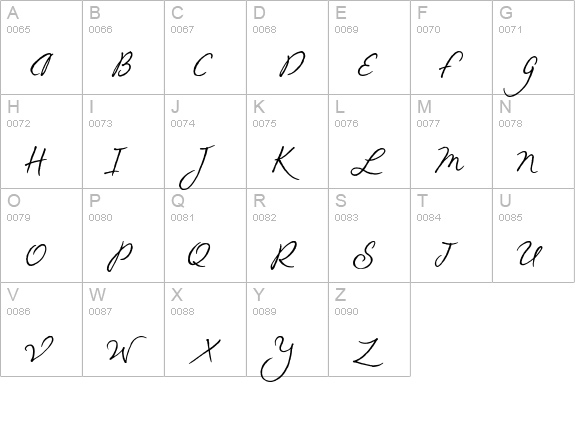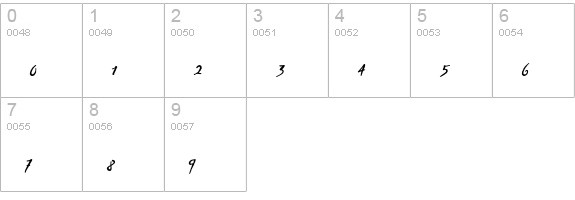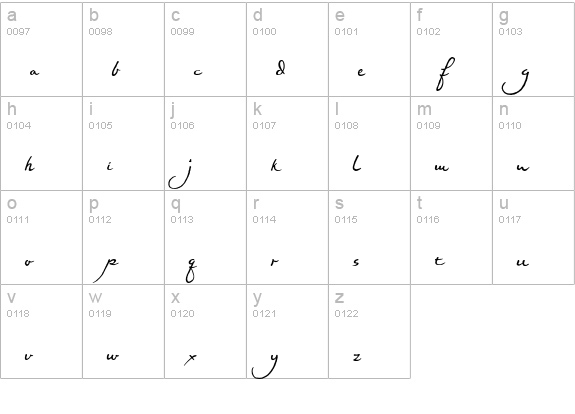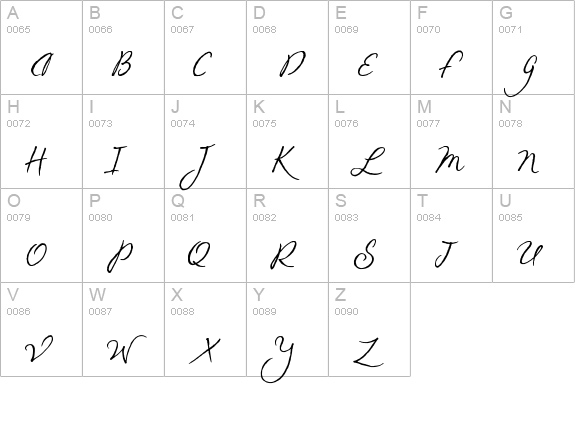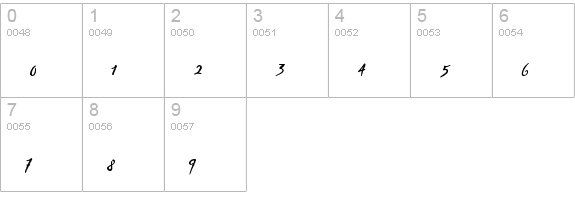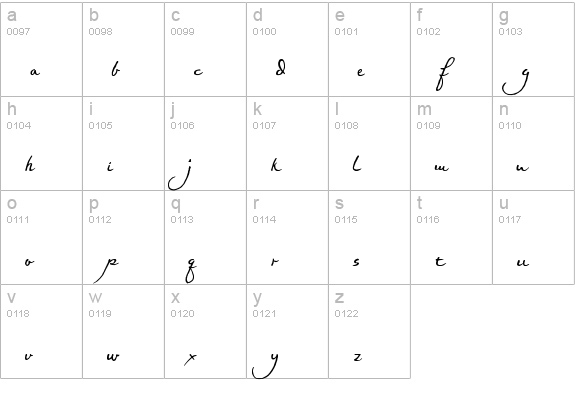
CK Legacy Font Details
Introducing CK Legacy font, a timeless and elegant typeface that exudes sophistication and charm. With its classic design and graceful curves, CK Legacy is the perfect choice for projects that require a touch of refinement and style. This versatile font is suitable for a wide range of applications, from invitations and wedding stationery to branding and packaging. Its clean lines and well-balanced proportions make it easy to read and pleasant to the eye, ensuring that your message is conveyed with clarity and elegance. The best part? CK Legacy font is available for free download at FontsMarket.com, allowing you to add a touch of class to your designs without breaking the bank. So why wait? Elevate your projects with the timeless beauty of CK Legacy font today.